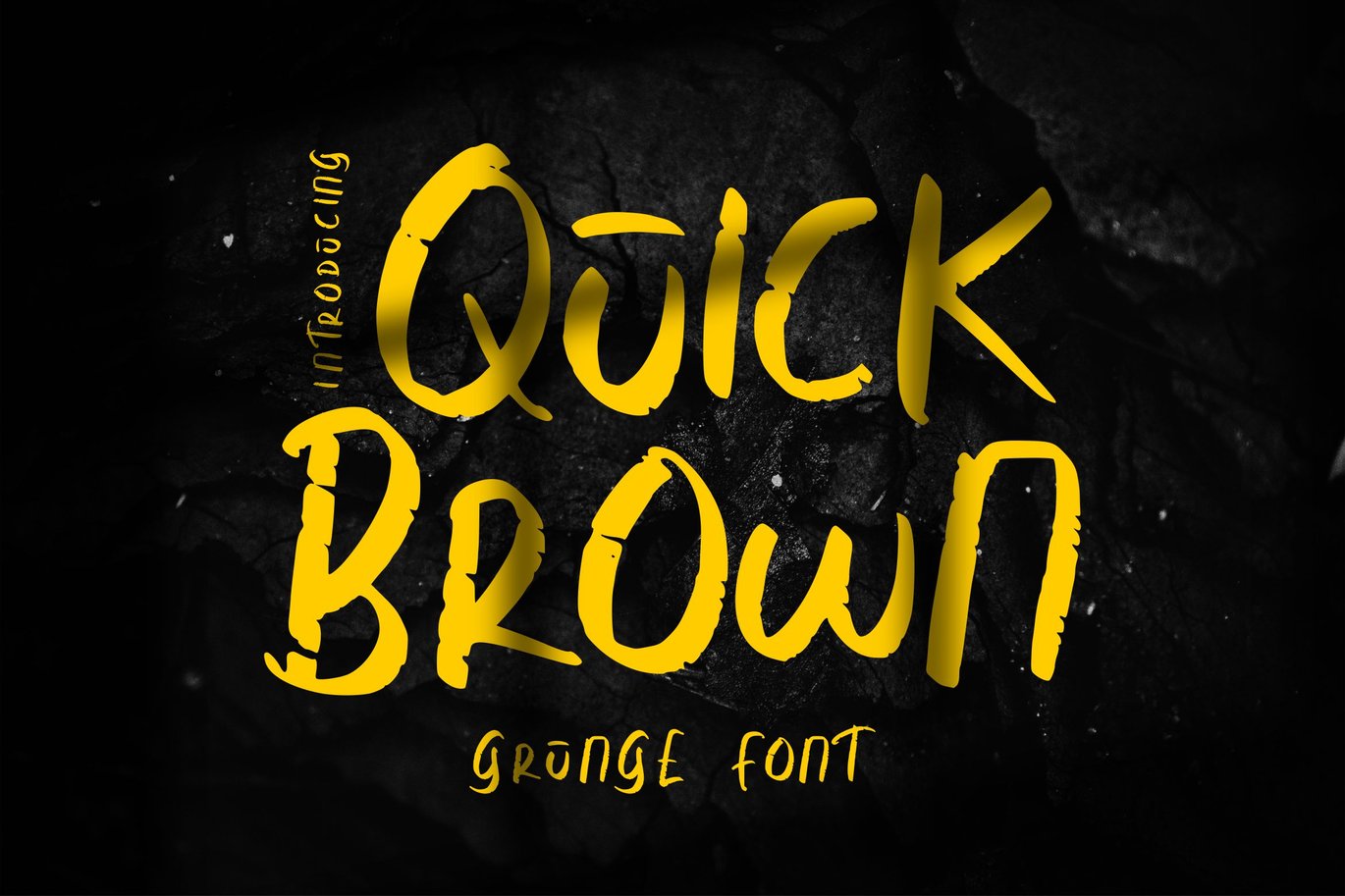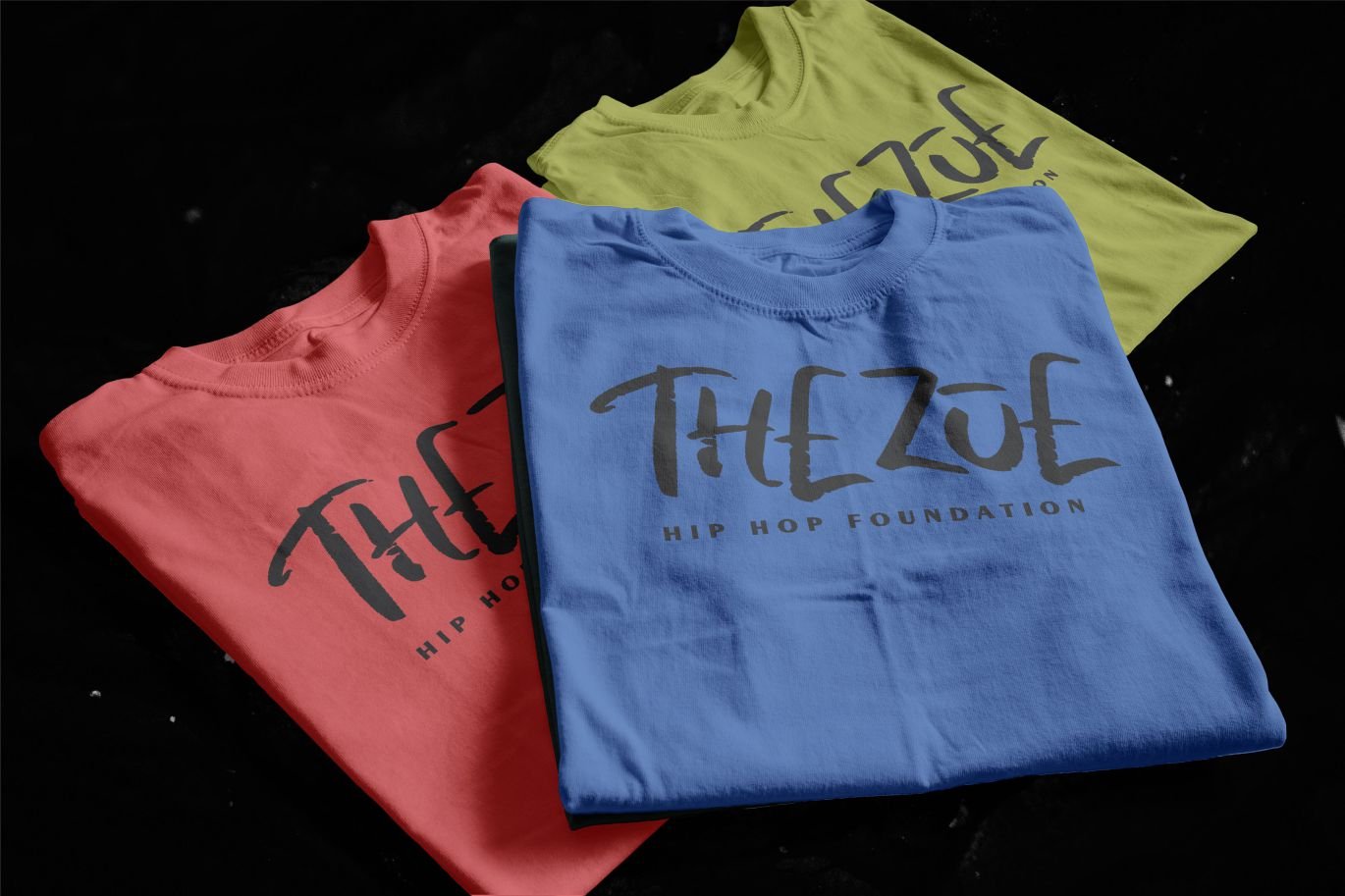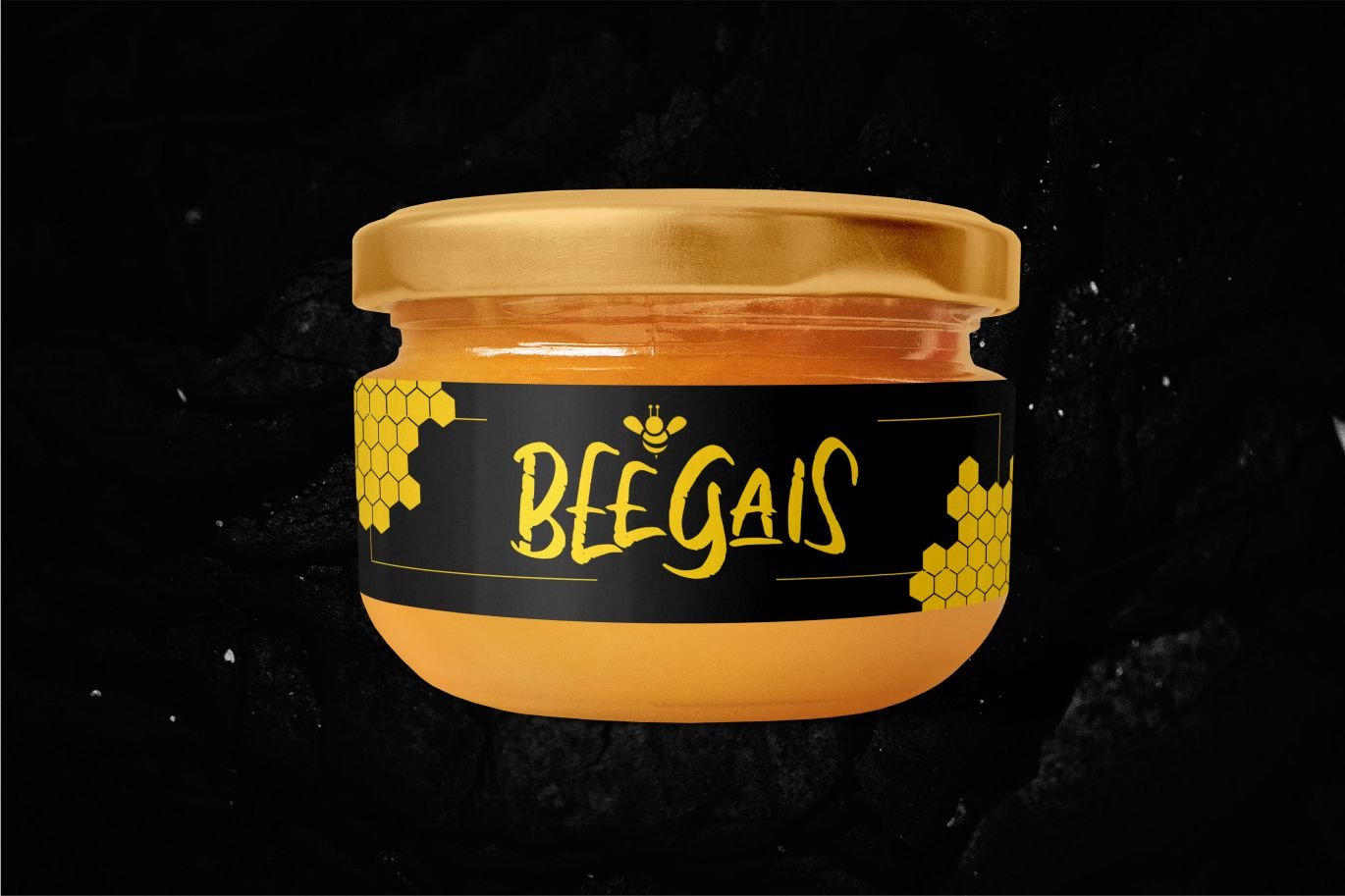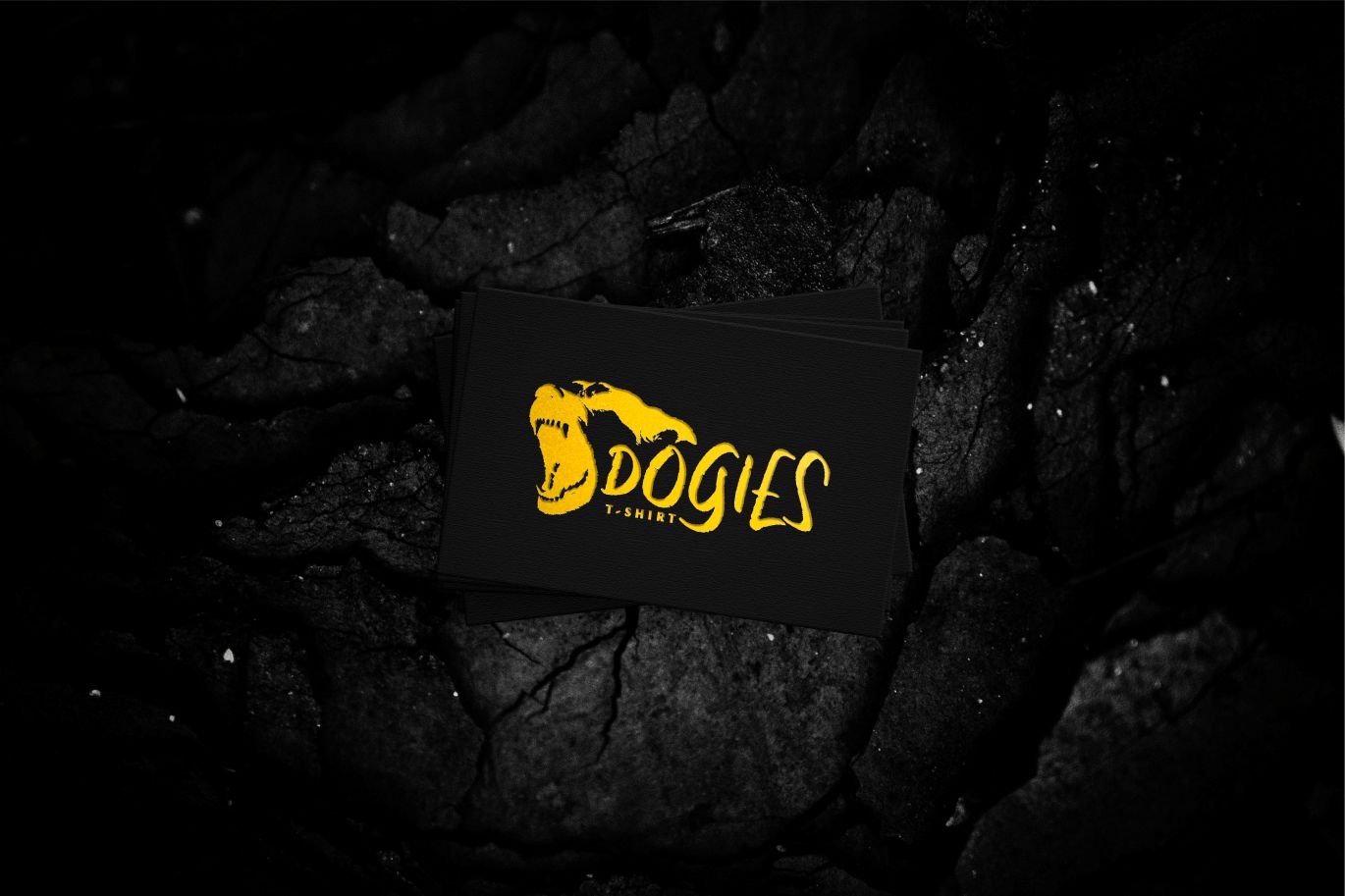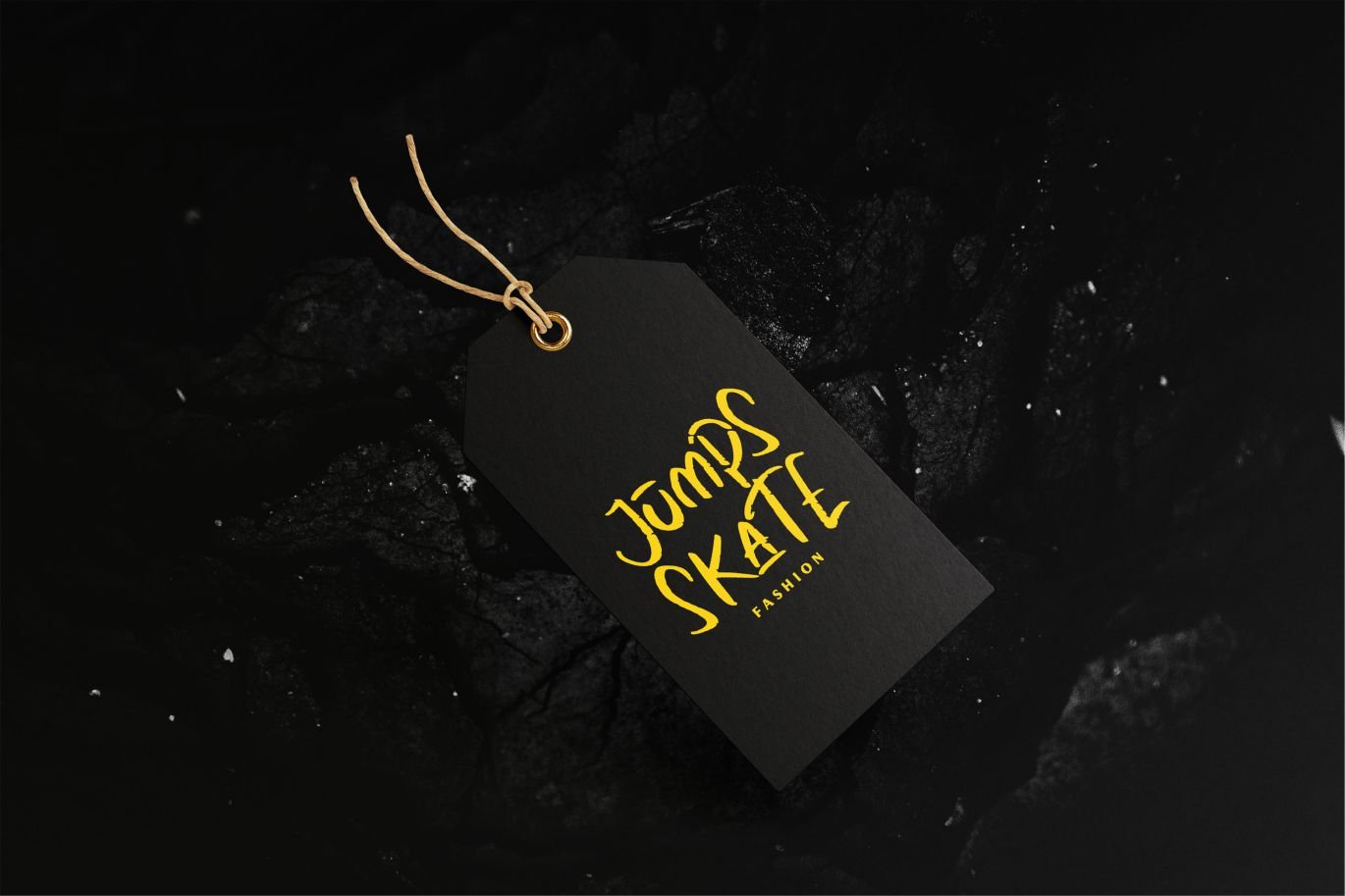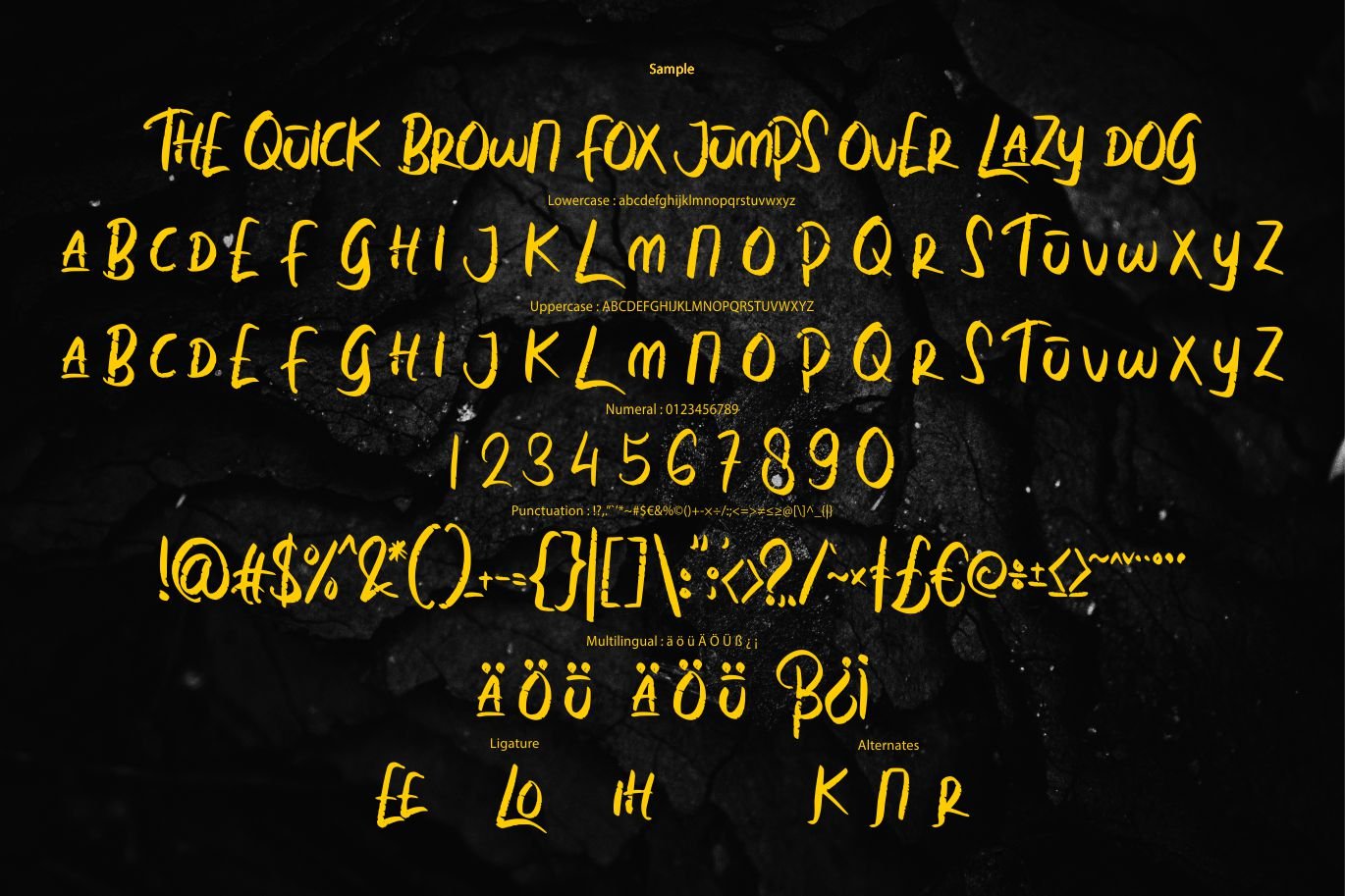
Quick Brown | Grunge Font
Quick Brown | Grunge Font with a calligraphy style, So beautiful on invitation like greeting cards, branding materials, business cards, quotes, posters, and more!